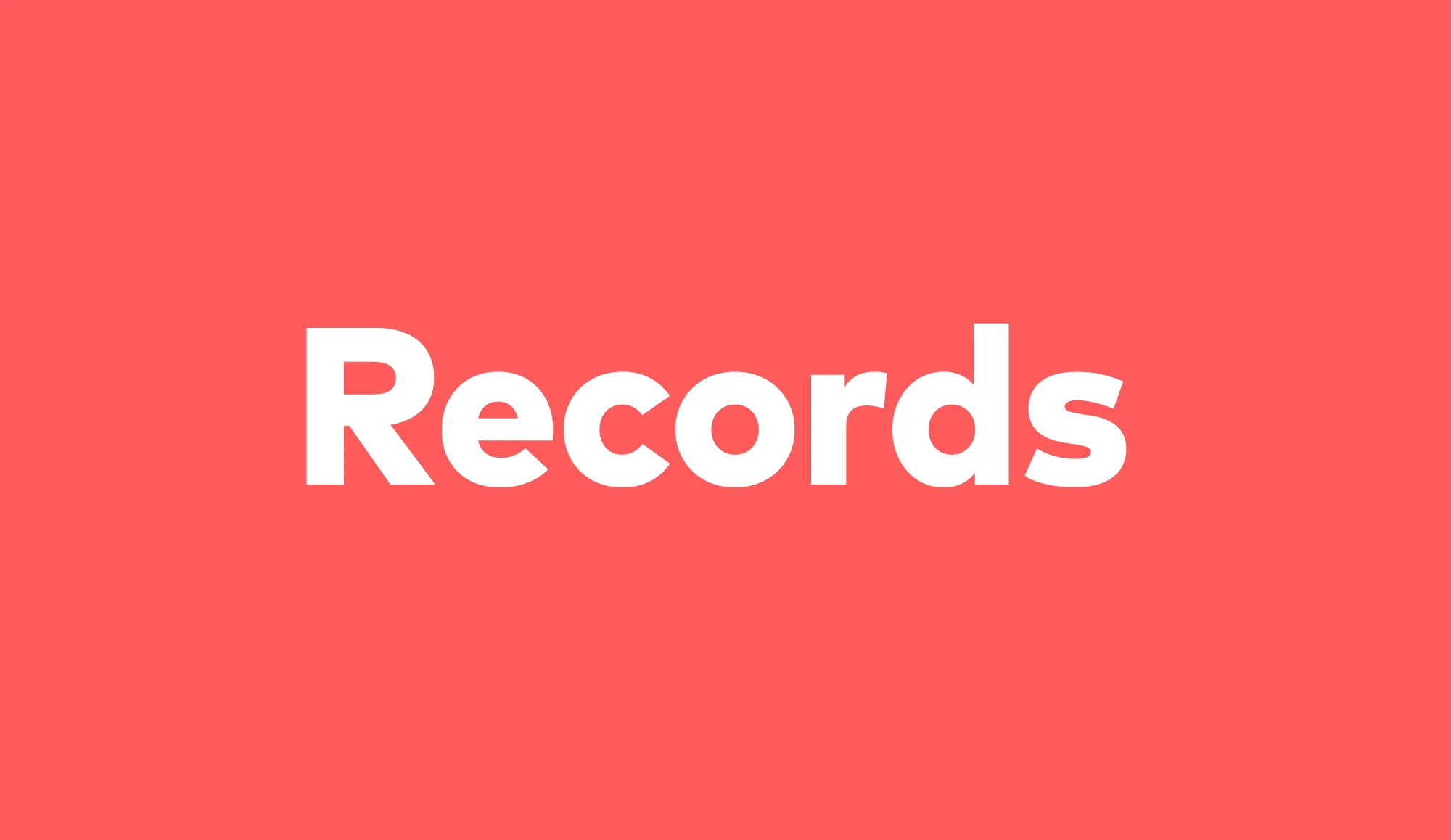
FF Mark
HvD Fonts · Hannes von Döhren, Christoph Koeberlin, FontFont Type Department · 2013
A geometric sans designed at HvD Fonts and released through FontFont, built on circular forms with broad multilingual coverage.
Constructed around near-perfect circles and rational geometry, FF Mark sits in the same tradition as Futura and Avenir but with a more even texture intended for contemporary corporate and editorial use. The family spans eight weights from Thin to Black with matching italics, plus a condensed subfamily for tighter settings. Cyrillic and Greek support extends its reach for international work.
FF Mark is a geometric sans-serif constructed on near-perfect circles and rational forms, placing it firmly in the geometric tradition alongside typefaces such as Futura and Avenir.